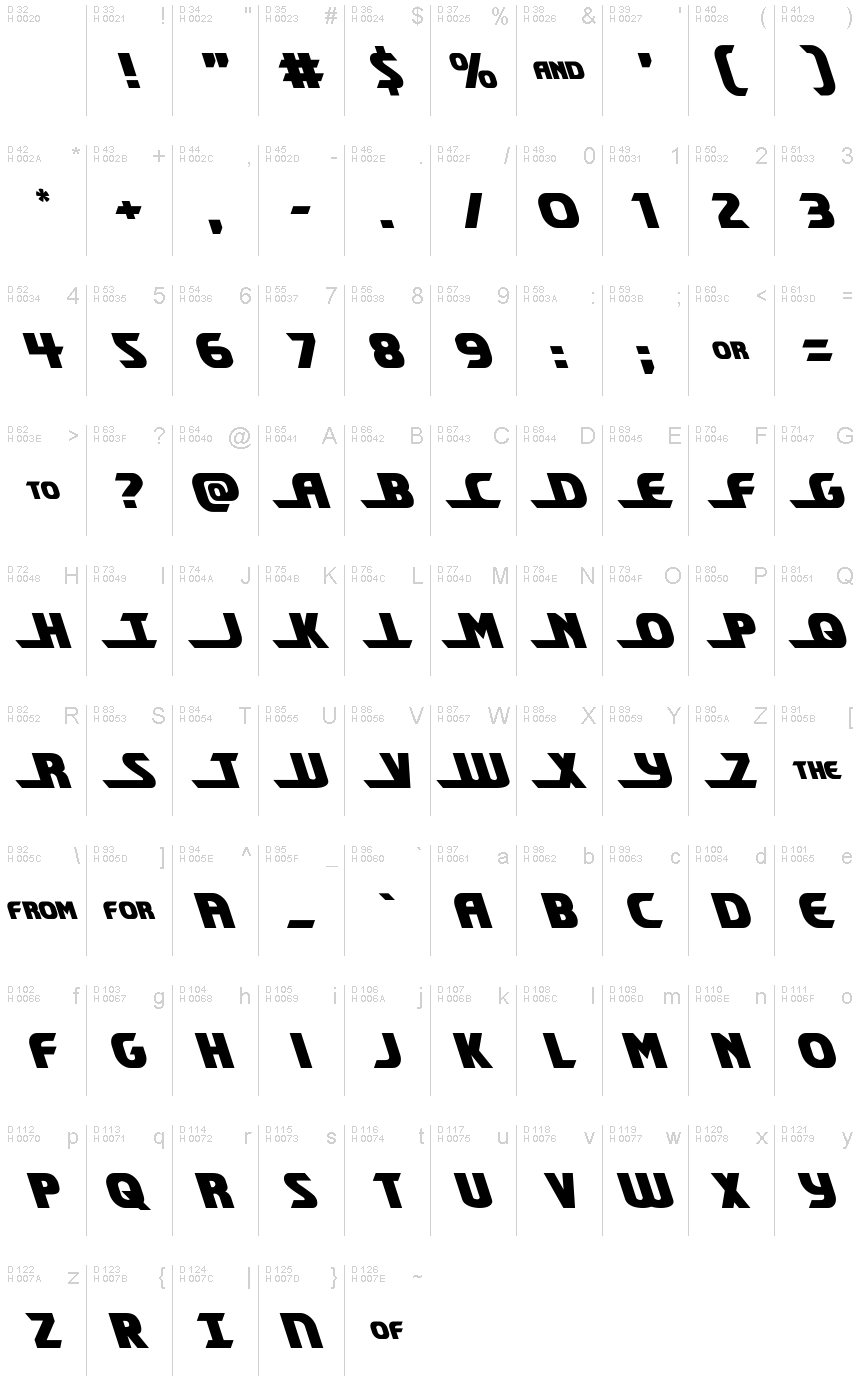
Shining Herald Semi-Leftalic
The Shining Herald Semi-Leftalic font from Iconian Fonts exudes a captivating futuristic charm. With its bold and distinctive letterforms, this display typeface commands attention, radiating an air of confidence and modernity. The angled ascenders and descenders, combined with the sleek, angular serifs, create a dynamic and energetic aesthetic, evoking a sense of technological advancement and progressive design. This font's striking visual presence makes it an excellent choice for a variety of contemporary applications, from branding and packaging to digital interfaces and editorial layouts.
Shining Herald Semi-Leftalic's versatility shines through its ability to adapt to diverse design contexts. Its bold and legible nature lends itself well to headings, titles, and attention-grabbing elements, while the futuristic flair can elevate the visual impact of logos, posters, and other high-impact design pieces. Additionally, this font's unique characteristics can contribute to the creation of captivating motion graphics, digital signage, and immersive user experiences, where its dynamic qualities can truly shine.